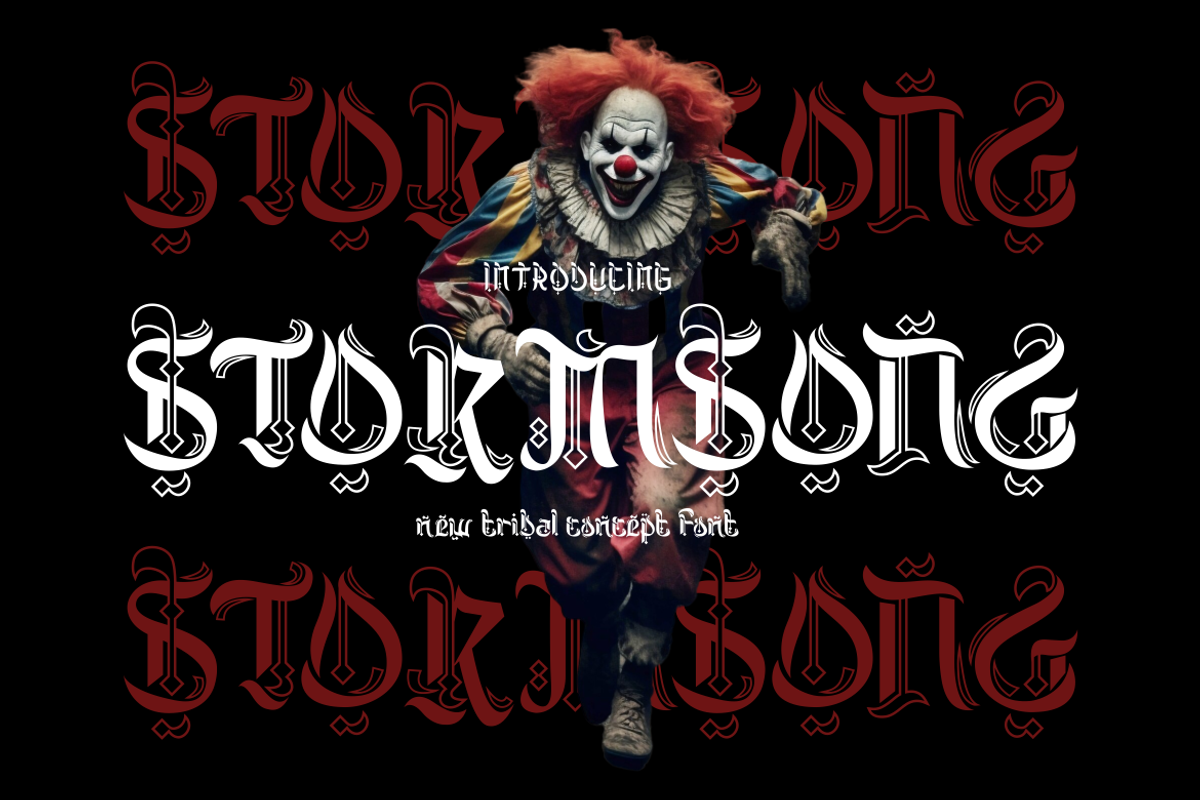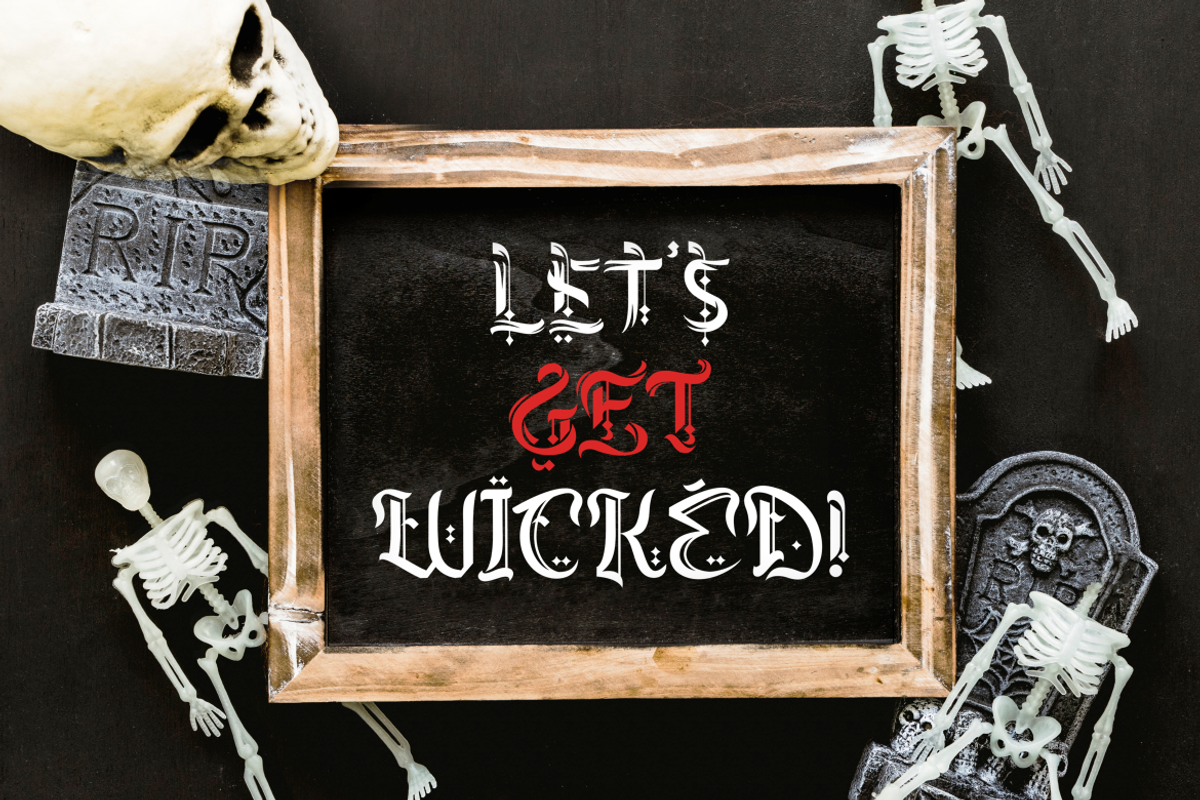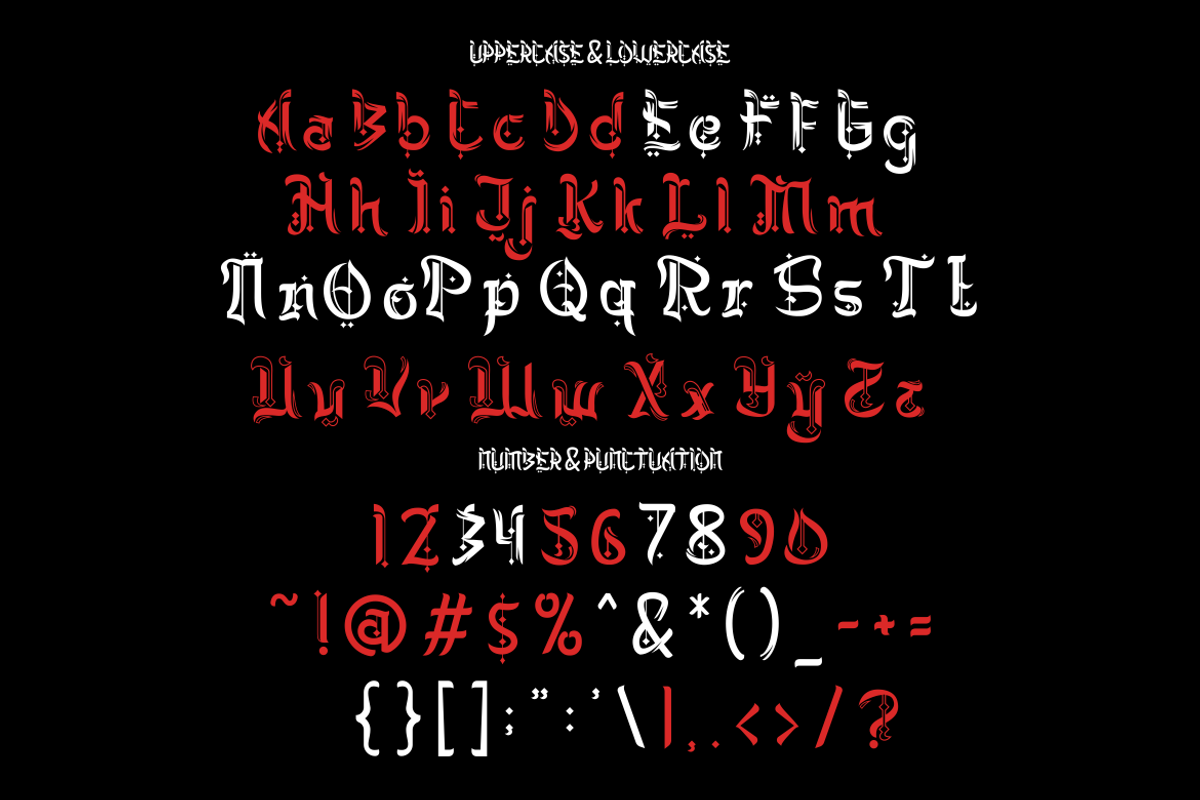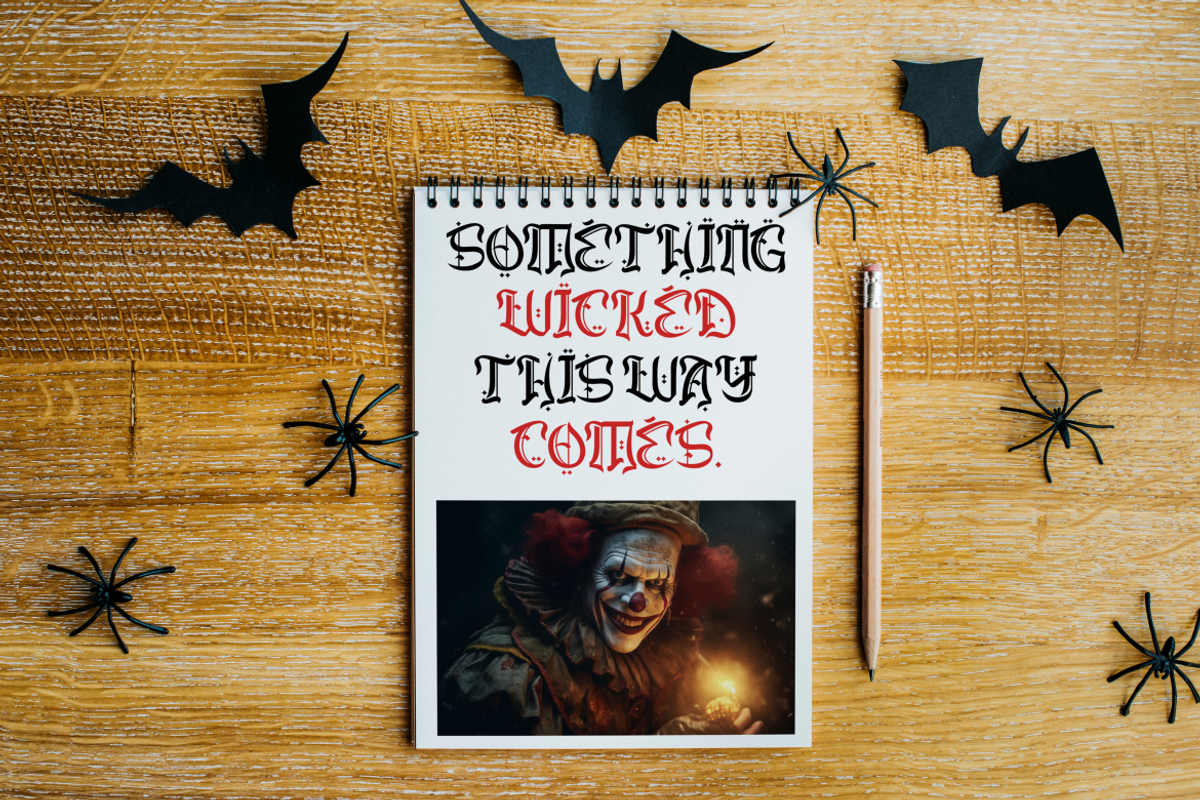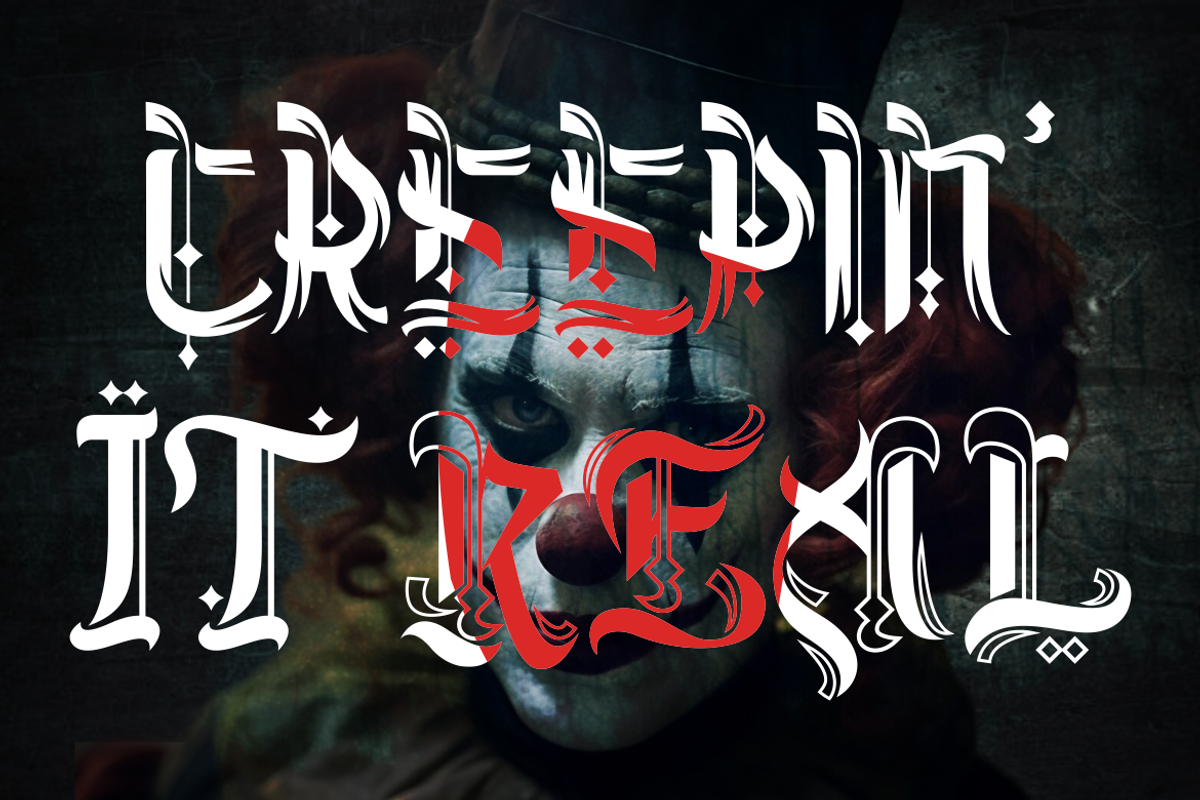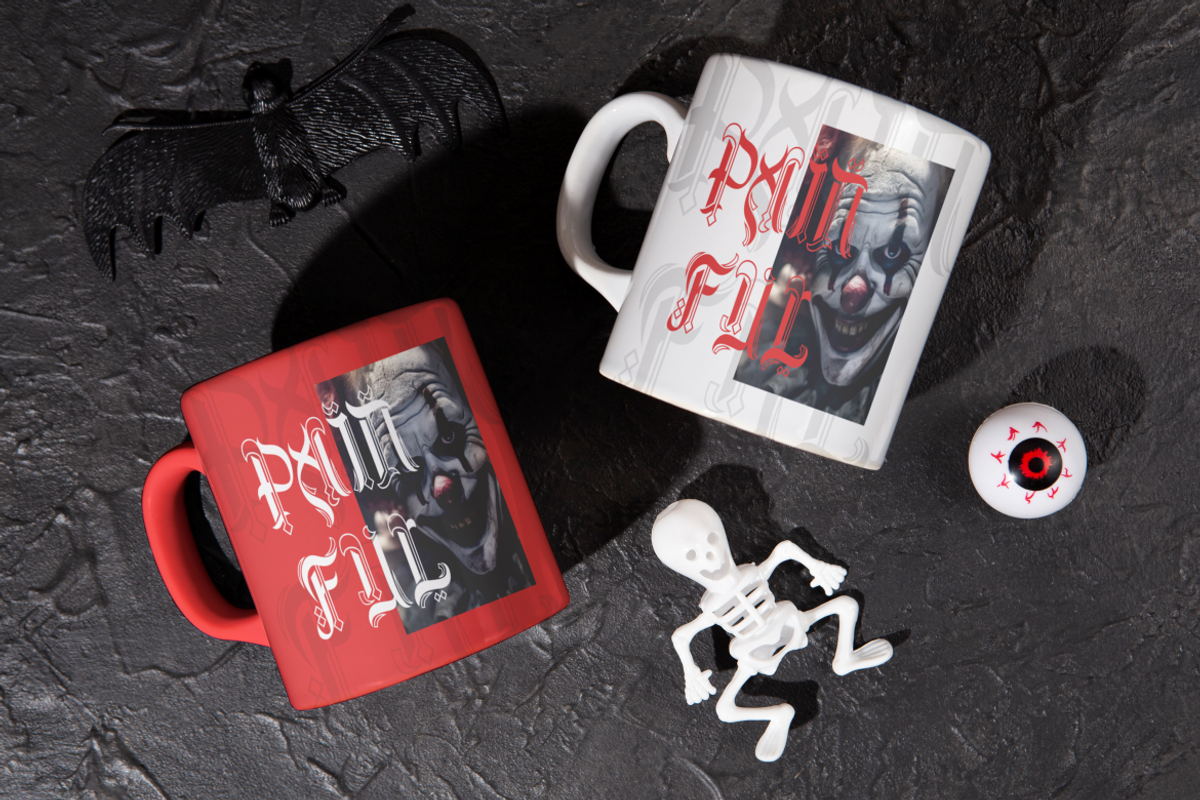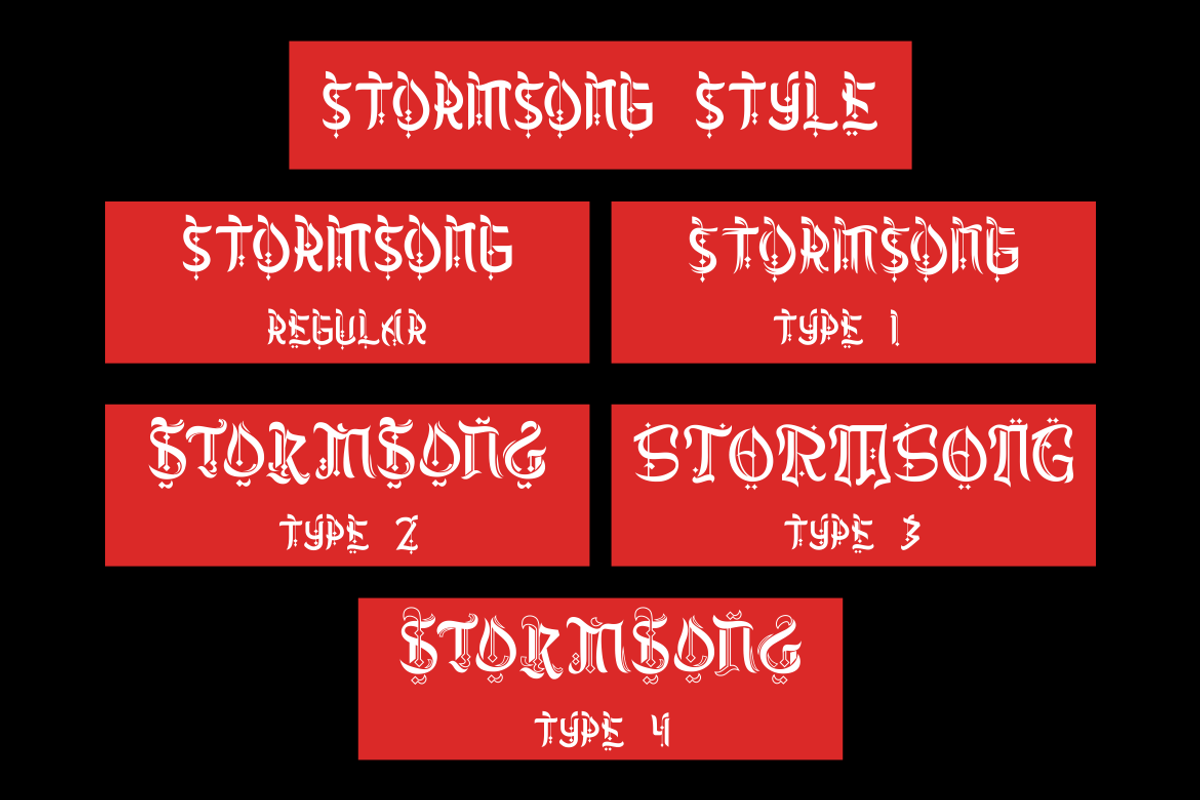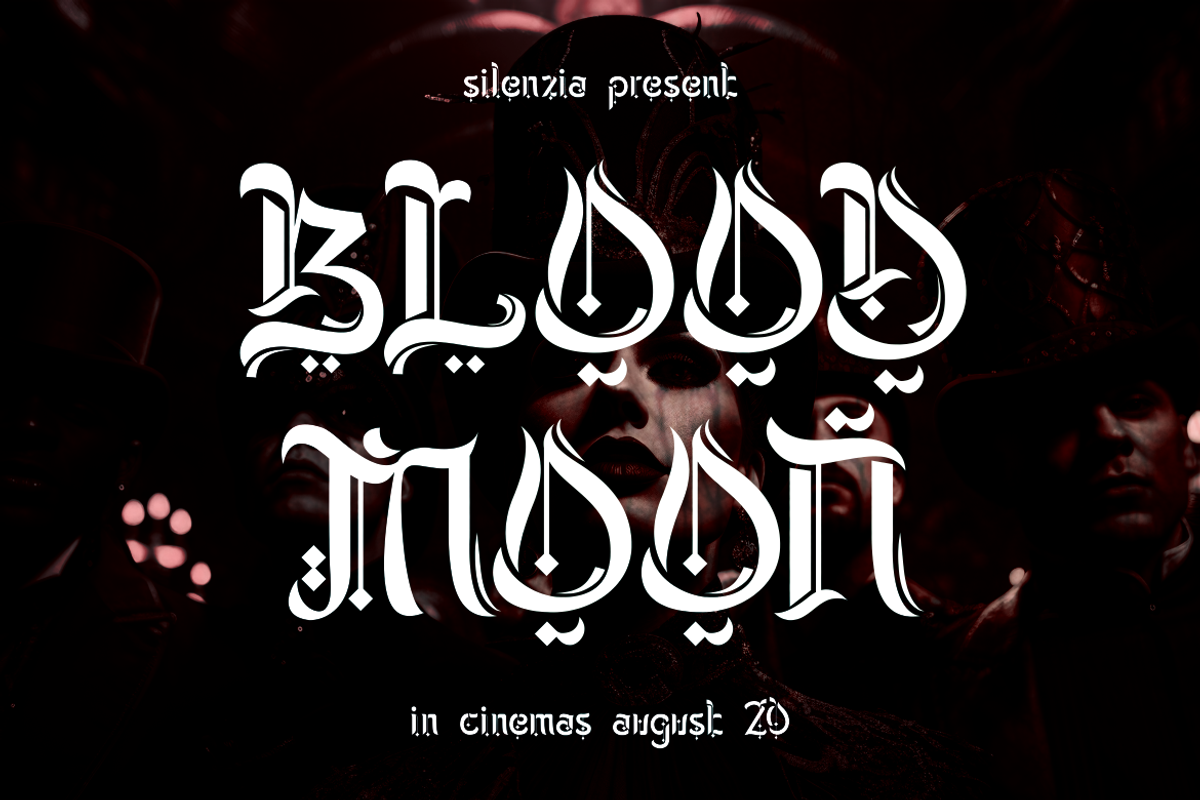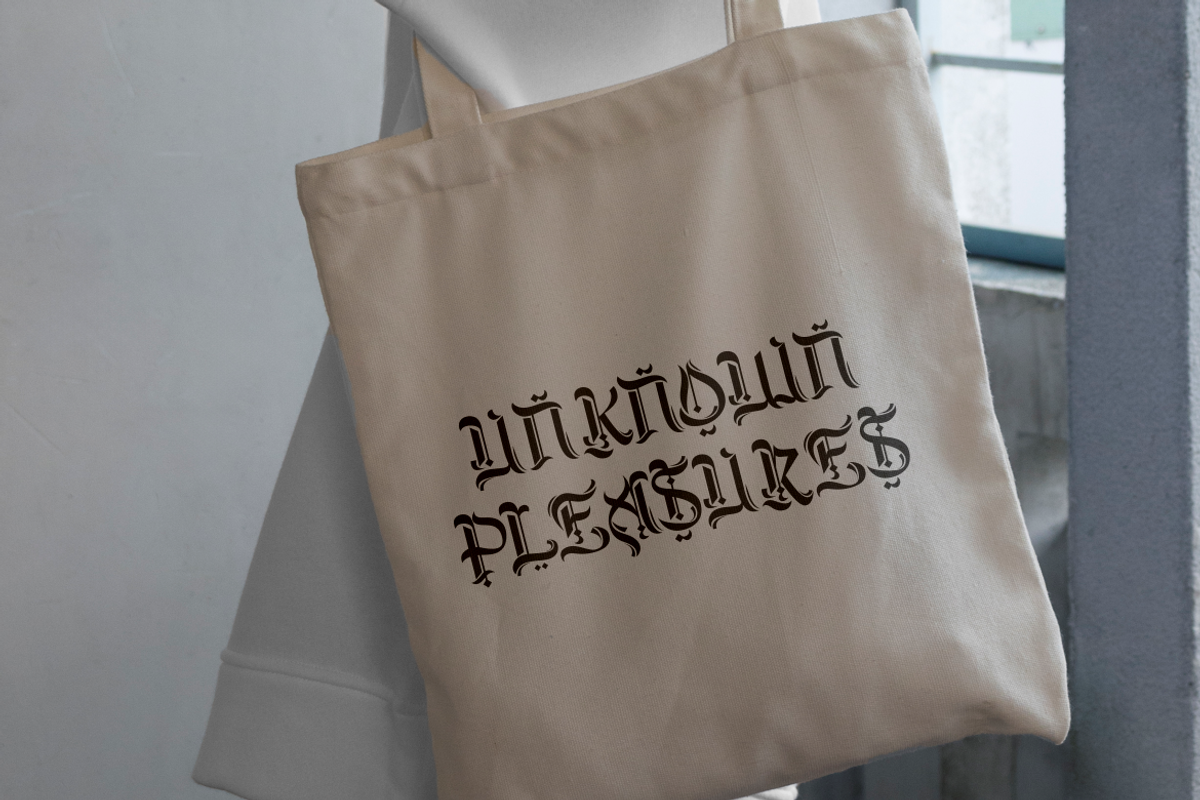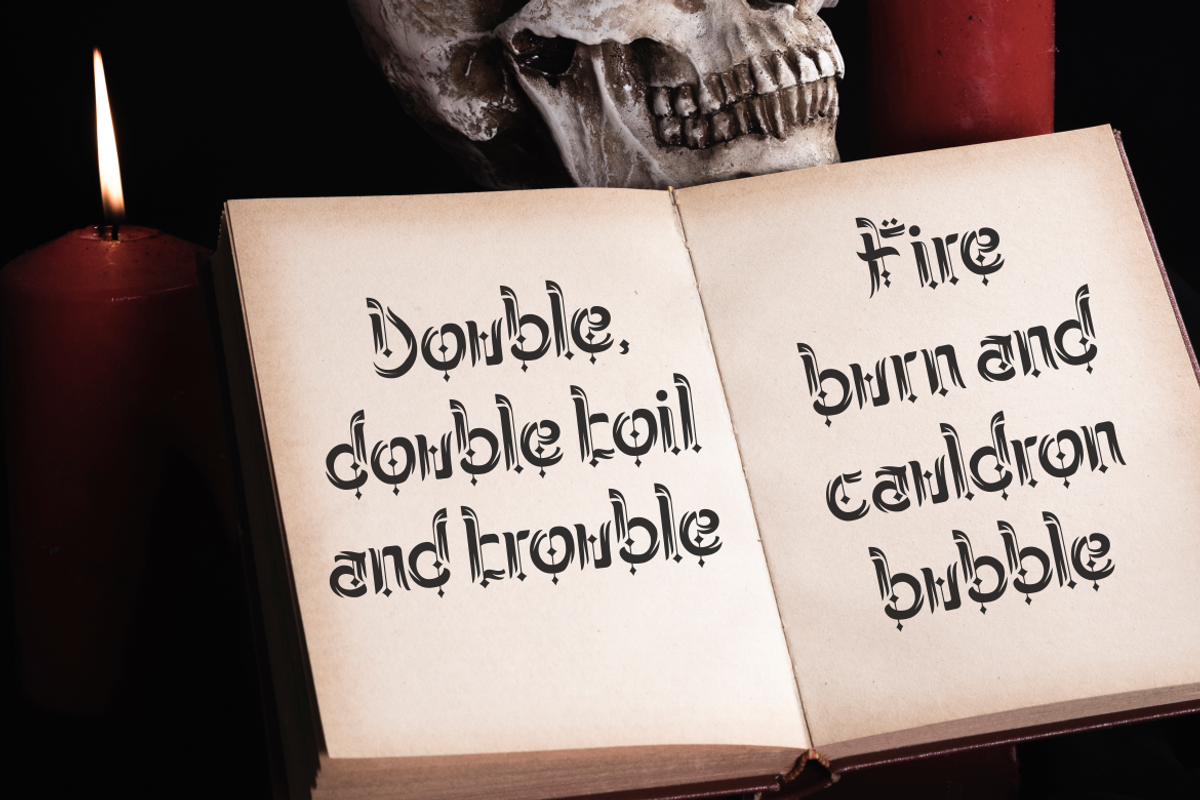
Stormsong - New Tribal Concept Font
Stormsong is a captivating typeface that seamlessly blends tribal aesthetics with an eerie, dark twist. Crafted for the bold and the imaginative, this font exudes an otherworldly energy that draws the eye and leaves a lasting impression. Tribal Elegance Meets Horror, Stormsong dances on the edge of ancient mysticism and modern design. Its sharp, angular forms evoke tribal symbols etched into stone tablets by forgotten civilizations. Yet, there’s an unsettling quality—the jagged edges hint at something lurking just beyond the veil. Imagine this font gracing the cover of a supernatural thriller or adorning a cryptic logo for an underground secret society. Stormsong thrives in diverse contexts. Use it for branding that demands attention—whether it’s a tattoo parlor, a metal band, or an edgy streetwear label. Its bold presence also suits crafting projects, where each letter becomes a mini work of art. Invitations, packaging, and posters gain an enigmatic allure when adorned with Stormsong. And don’t forget children’s books—the juxtaposition of innocence and darkness makes for a memorable reading experience.